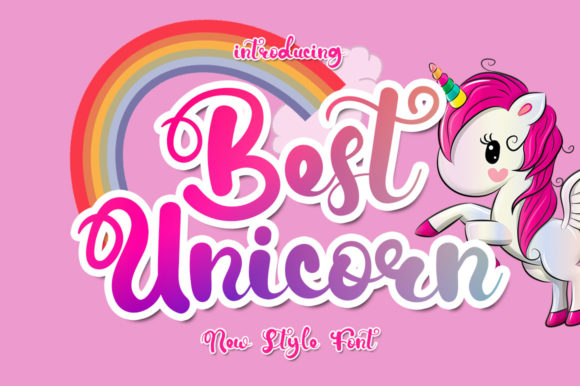
The Magical World of Best Unicorn Font
I’ll never forget the time I was working on a whimsical children’s book project, and my client asked for a font that would add a touch of magic to the illustrations. I scoured the internet for the perfect font, and that’s when I stumbled upon Best Unicorn. It was love at first sight! ✨ This beautiful and sweet font has been a game-changer for my designs, and I’m excited to share its wonders with you.
An Honest Review of Best Unicorn Font
• ✨ Fresh, clean, and elegant design that works well for both formal and informal projects
• ✅ Highly versatile and adaptable to various design styles
• 🌈 Incredibly joyful and playful, perfect for adding a touch of whimsy to your designs
• 👍 Excellent for projects that require a friendly and approachable tone
While Best Unicorn Font is an amazing addition to any design project, there are a few things to keep in mind: 🤔
• ⚠️ Some characters may appear a bit narrow, so be mindful of spacing and kerning
• ⚠️ Limited availability of language support, so double-check compatibility before use
3. Experiment with OpenType features, such as ligatures and stylistic alternates, to add visual interest
The Designer Inspiration Behind Best Unicorn Font
Best Unicorn Font was inspired by the world of fantasy and mythology. The designer, a lover of all things whimsical and magical, created this font to bring a touch of enchantment to everyday designs. With its elegant lines and playful feel, Best Unicorn Font is sure to transport your designs to a world of wonder and awe.
Font Name Best Unicorn Font
Author Eddygoodboy
Q: What type of projects is Best Unicorn Font best suited for?
A: Best Unicorn Font is highly versatile and can be used for a wide range of projects, from formal and informal designs to digital and print materials.
Q: Is Best Unicorn Font available in multiple languages?
A: Best Unicorn Font may have limited language support. Be sure to check compatibility before use.